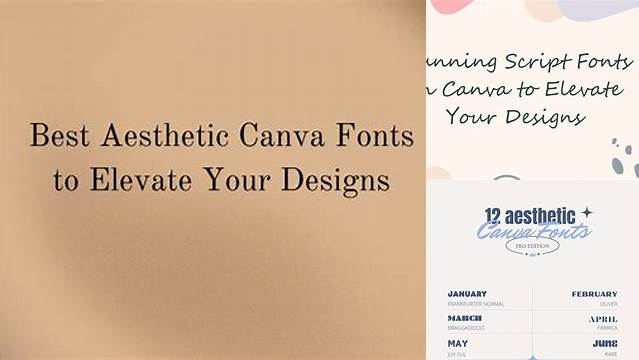
Canva Aesthetic Fonts: Elevate Your Designs
Hey guys! Ever wondered how some designs just pop and grab your attention? A huge part of that is the font! Using the right aesthetic fonts in Canva can seriously transform your projects from “meh” to “WOW!” Let's dive into the world of Canva aesthetic fonts and explore how to choose, use, and combine them to create stunning visuals. Whether you're designing social media posts, presentations, or even personal projects, getting your font game on point is key. So, buckle up and let's get started!
What are Aesthetic Fonts?
Before we jump into Canva, let's define what we mean by aesthetic fonts. These aren't just your run-of-the-mill Times New Roman or Arial. Aesthetic fonts are typefaces that possess a certain visual appeal or evoke a particular mood or style. They can range from elegant and sophisticated to playful and quirky, and everything in between. The main goal is to choose a font that not only looks good but also complements the overall design and message you're trying to convey. Think of fonts as the voice of your design – you want it to be clear, engaging, and perfectly suited to your audience. So, choosing the right aesthetic fonts is crucial for making your designs stand out and resonate with your viewers.
Why Use Aesthetic Fonts in Canva?
Okay, so why bother with aesthetic fonts in Canva? Well, Canva is an amazing platform for creating all sorts of designs, but it's the little details that make a big difference. Using aesthetic fonts can instantly elevate your work, making it look more professional and polished. Think about it: a generic font might get the message across, but an aesthetic font can add personality, emotion, and visual interest. This is super important for grabbing attention in a crowded online space. Plus, the right font can reinforce your brand identity, creating a consistent look and feel across all your designs. In short, aesthetic fonts are a simple yet powerful way to make your Canva projects stand out from the crowd and leave a lasting impression.
Best Canva Fonts for a Minimalist Aesthetic
If you're aiming for a minimalist vibe, you'll want fonts that are clean, simple, and easy on the eyes. Think of fonts like Montserrat, Raleway, and Open Sans. These are all fantastic options for body text and headings. For a touch of elegance, consider using a lighter weight or an all-caps version. The key is to keep it understated and let the other elements of your design shine. Minimalist design is all about simplicity and clarity, so choosing a font that embodies those qualities is essential. These fonts will help you create a sleek, modern look that's both visually appealing and highly readable, which is perfect for projects that need to convey a sense of calm and sophistication.
Top Canva Fonts for a Retro Aesthetic
For a retro feel, you'll want to explore fonts that evoke the spirit of past decades. Think groovy 70s fonts, bold 80s typefaces, or even vintage-inspired serifs. Some great options include Bebas Neue, Cooper Black, and Lobster. These fonts have a distinct personality and can add a fun, nostalgic touch to your designs. When using retro fonts, don't be afraid to experiment with colors and graphic elements that complement the era you're channeling. A splash of neon, some geometric shapes, or a vintage texture can really enhance the retro vibe. Remember, the goal is to transport your audience back in time, so choose fonts that capture the essence of the era you're aiming for.
Elegant Canva Fonts for Sophisticated Designs
When it comes to creating elegant and sophisticated designs, the font you choose can make all the difference. Opt for fonts that exude class and refinement, such as Didot, Playfair Display, or Garamond. These typefaces have a timeless quality and can instantly elevate the look of your projects. Use them sparingly for headings or titles, and pair them with a simple, readable font for body text. The key is to strike a balance between elegance and readability. You want your design to look polished and refined, but you also want it to be easy for your audience to read and understand. So, choose fonts that embody sophistication without sacrificing clarity.
Fun and Playful Canva Fonts for Creative Projects
If you're working on a creative project that needs a touch of fun and whimsy, don't be afraid to experiment with playful fonts. Think of fonts like Bubbly One, Fredoka One, or Luckiest Guy. These typefaces have a cheerful, approachable vibe and can add a sense of personality to your designs. They're perfect for projects aimed at children or anyone who appreciates a lighthearted aesthetic. When using playful fonts, consider pairing them with bright colors and fun graphic elements to enhance the overall effect. Just remember to use them judiciously – too much playfulness can be overwhelming. The goal is to create a design that's engaging and enjoyable, but not distracting or chaotic.
Combining Canva Fonts Like a Pro
One of the keys to great design is knowing how to combine fonts effectively. A good rule of thumb is to choose one dominant font for headings and another, simpler font for body text. Avoid using more than two or three fonts in a single design, as this can make it look cluttered and confusing. When pairing fonts, look for contrast – for example, you might pair a bold sans-serif font with a delicate serif font. Experiment with different combinations until you find something that works well together. There are also plenty of online resources and font pairing tools that can help you find complementary fonts. Remember, the goal is to create a harmonious visual hierarchy that guides the viewer's eye and makes the text easy to read.
Where to Find More Unique Canva Fonts
Canva offers a wide range of fonts, but if you're looking for something truly unique, you might want to explore external font resources. Websites like Google Fonts, Font Squirrel, and DaFont offer a vast selection of free and premium fonts that you can upload to Canva. Just be sure to check the licensing terms before using any font, as some may require a commercial license for certain types of projects. When browsing font websites, pay attention to the categories and tags to help you narrow down your search. You can also use keywords like “aesthetic,” “minimalist,” or “retro” to find fonts that match your desired style. With a little bit of searching, you can discover hidden gems that will take your Canva designs to the next level.
Using Canva Font Styles Effectively
Canva's font styles feature can be a real lifesaver when you're trying to create a cohesive design. Font styles are pre-designed combinations of fonts, colors, and effects that you can apply to your text with a single click. This is a great way to quickly experiment with different looks and find a style that suits your project. However, it's important to use font styles judiciously. Don't just blindly apply a style without considering whether it's appropriate for your design. Take the time to customize the font styles to match your brand and the overall aesthetic of your project. You can change the colors, fonts, and effects to create a truly unique look that reflects your personal style. Remember, font styles are a starting point, not a final solution.
Conclusion: Mastering Canva Aesthetic Fonts
So there you have it, guys! Mastering Canva aesthetic fonts is all about understanding the basics, experimenting with different styles, and finding what works best for your designs. Remember to choose fonts that complement your overall aesthetic, combine them effectively, and don't be afraid to explore external resources for unique options. With a little practice and creativity, you can elevate your Canva projects and create stunning visuals that grab attention and leave a lasting impression. Now go out there and start designing!